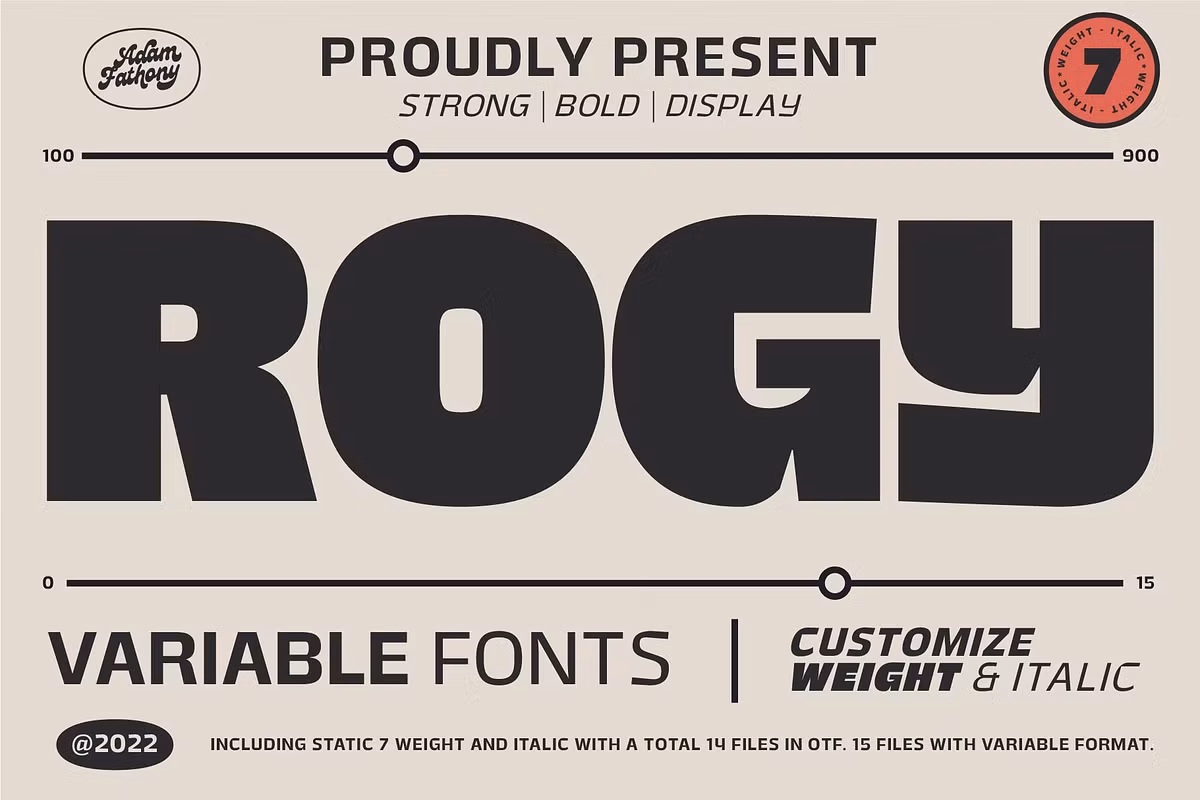
The Rogy Variable Fonts Free Download is a versatile and dynamic typeface that allows you to customize its weight and style to suit any project. Perfect for branding, logos, websites, posters, and more, this font is designed for flexibility and adaptability, making it ideal for both digital and print use.
With Rogy Variable Fonts, you can seamlessly adjust the thickness, width, and other attributes, allowing you to create a wide range of effects and typographic styles. It includes uppercase and lowercase letters, numbers, punctuation, and multilingual support, providing great versatility for various design applications.